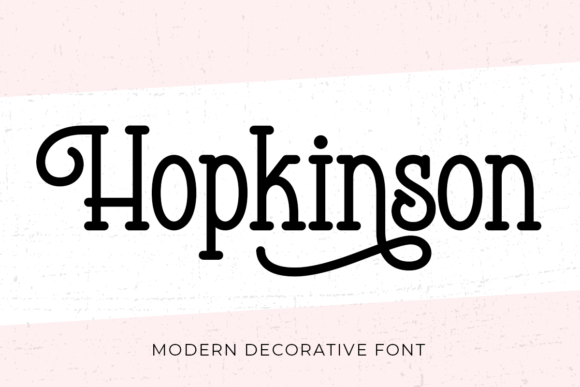
Step into the world of Hopkinson, a contemporary serif font that exudes elegance, playfulness, and a touch of handwritten charm. Crafted with meticulous attention to detail, each letter in the Hopkinson font family is a captivating work of art that dances across your screen, leaving a trail of beauty and inspiration.
With its friendly, open lines and curves, Hopkinson possesses an inviting personality that welcomes your eyes and invites you to explore the depths of its unique beauty. The font's distinctive hand-drawn style adds a touch of playfulness and warmth, making it perfect for projects that require a personal and engaging touch.
Hopkinson is a versatile font that effortlessly adapts to a wide range of design projects. Whether you're creating captivating branding materials, showcasing your photography, or crafting engaging blog posts, Hopkinson's versatile nature shines through, elevating your creations with its timeless elegance.
This remarkable font is PUA encoded, granting you effortless access to a treasure trove of glyphs and ligatures. Unleash your creativity and explore the endless possibilities as you craft designs that captivate and inspire.
Hopkinson is more than just a font; it's an artistic expression that transforms your words into captivating visual masterpieces. Its captivating charm and versatility make it the perfect choice for designers, artists, and creative individuals who seek to make a lasting impression.